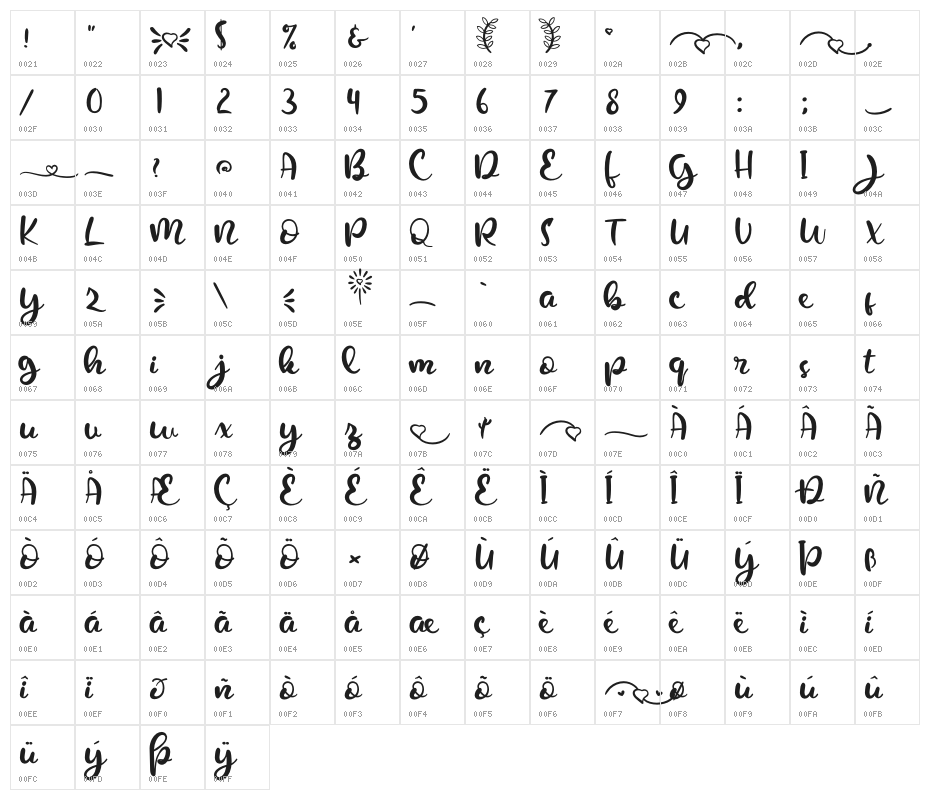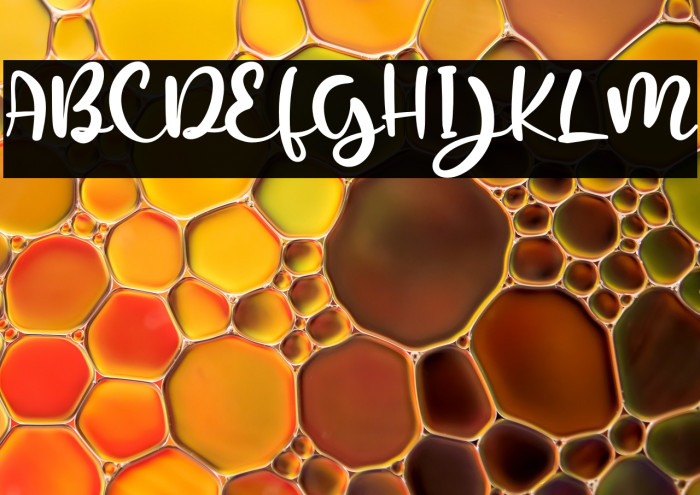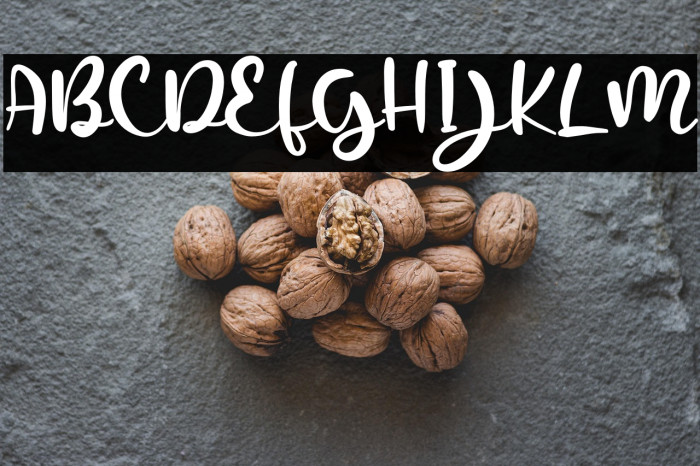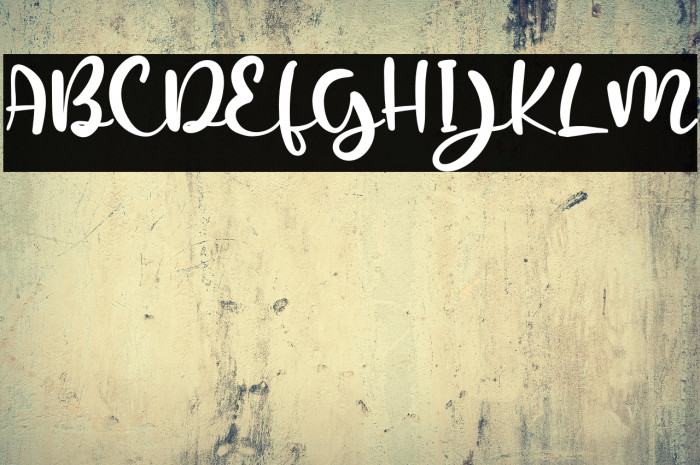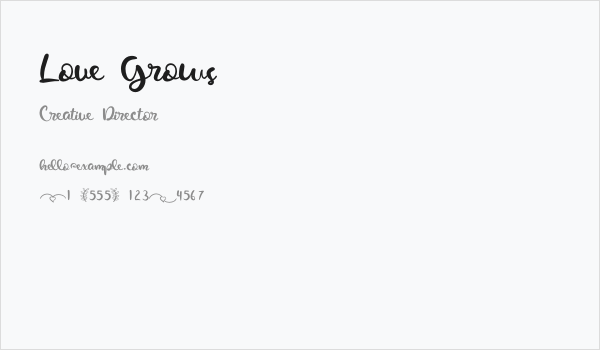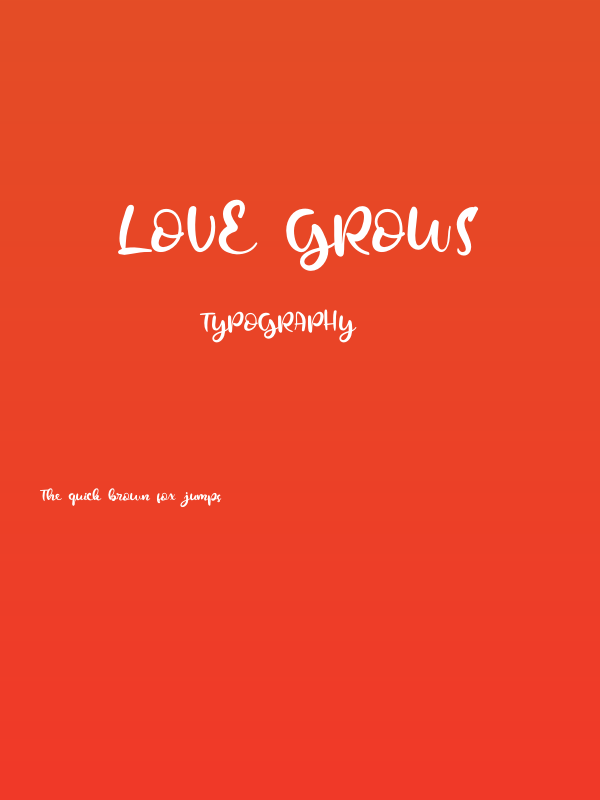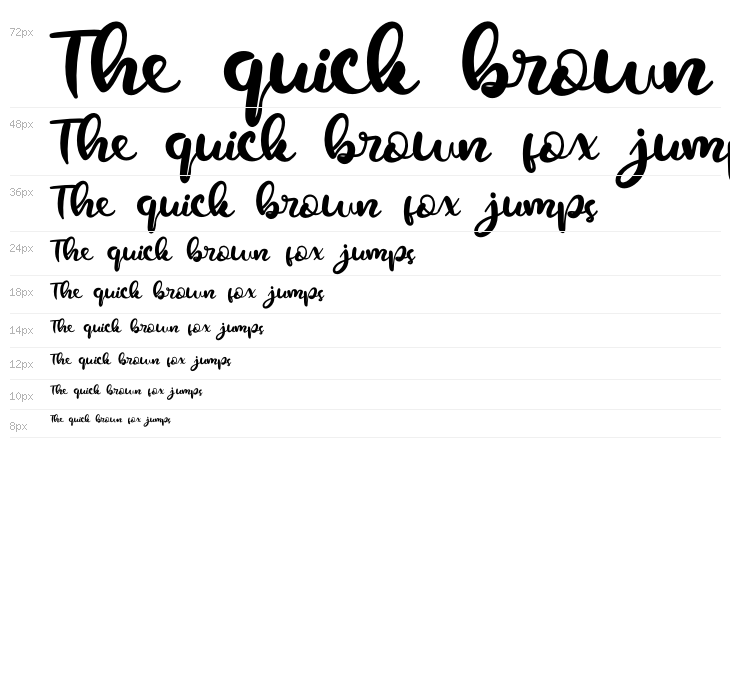
Love Grows Font
Love Grows Description
This font exudes a playful and whimsical charm, characterized by its flowing, cursive style. The letters are interconnected with smooth, rounded strokes, giving it a handwritten feel. The uppercase letters maintain a consistent height, while the lowercase letters feature playful loops and curves. Numbers are bold and clear, matching the overall style. Special characters include decorative elements like hearts and flourishes, adding to its romantic and joyful aesthetic. This font is perfect for projects that require a personal and heartfelt touch.
| Use Case | Logos, Invitations, Greeting Cards |
| Proposed Projects | Ideal for wedding invitations, greeting cards, personal branding, and romantic-themed designs. |